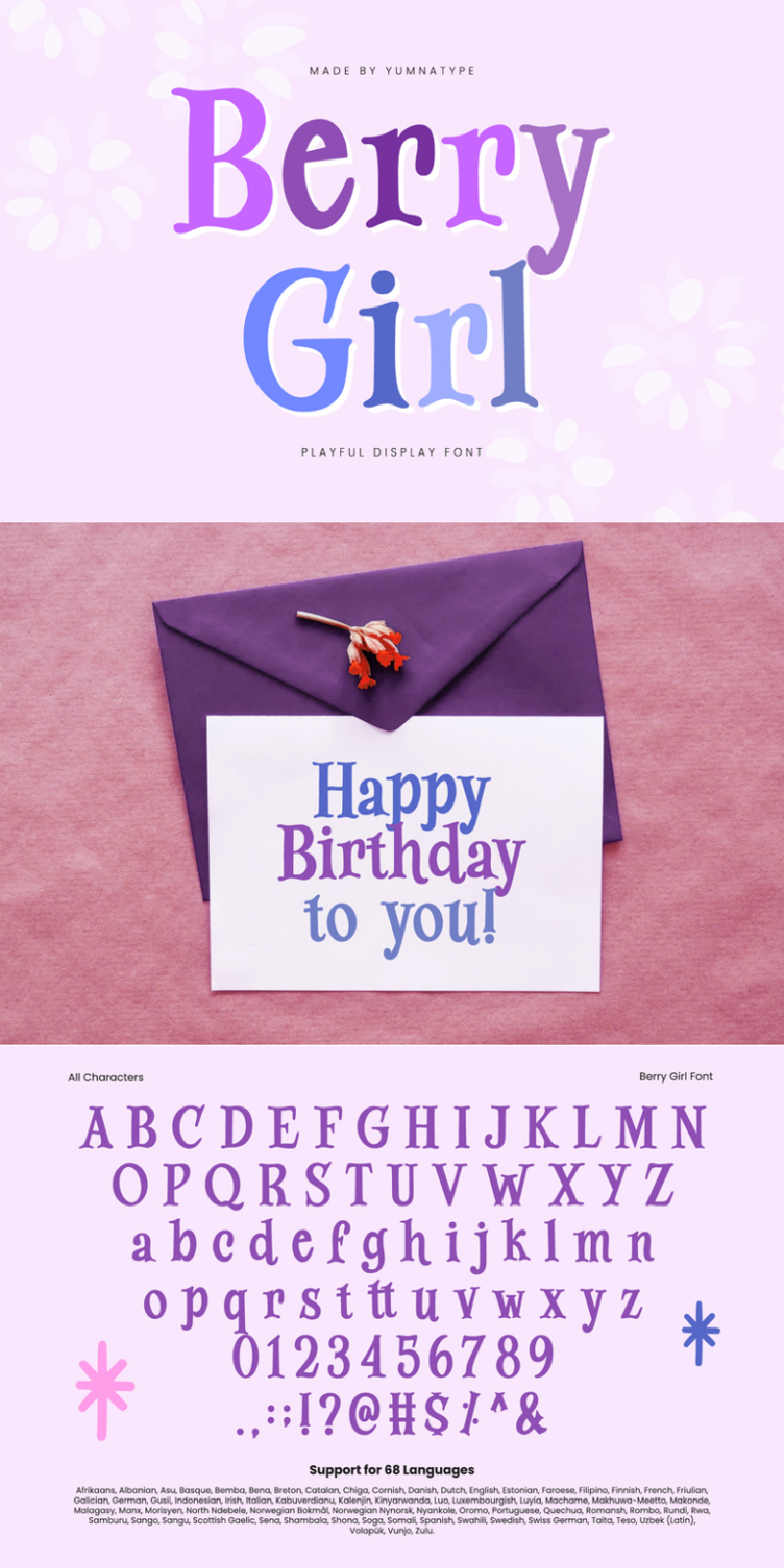
Berry Girl Font
About Berry Girl
Berry Girl is a delightful display font that unquestionably adds a touch of whimsy and charm to your designs. Each letter is meticulously designed to maintain the same proportions, creating a cohesive and visually pleasing composition to your text. The fairly thick weight of Berry Girl ensures that your message is conveyed with clarity and impact.
On the other side, the rounded shapes soften the overall look of the font. Adding to its whimsical charm, Berry Girl’s outline that is not a straight line. This irregularity adds visual interest and creates a dynamic texture that sets it apart from other display fonts. In addition, enjoy the features here.
Berry Girl fits in headlines, logos, posters, flyers, branding materials, print media, editorial layouts, and many more designs. Find out more ways to use this font by taking a look at the font preview.